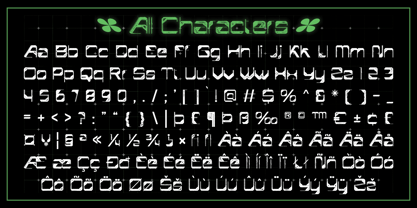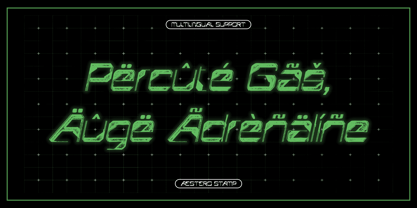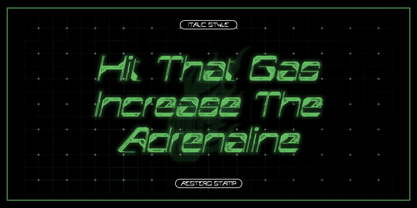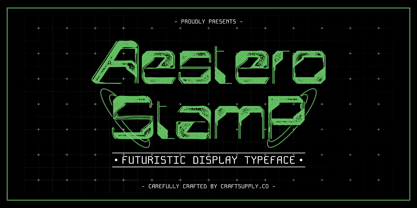
Aestero Stamp
by Craft Supply Co
The Aestero Stamp Font Family was designed by Trio Nazzar Saputra, Wahyu Hadi Yuana and published by Craft Supply Co. Aestero Stamp contains 2 styles and family package options.
Aestero Stamp – Futuristic Display Font
Innovative Aesthetic Inspired by Sci-Fi
Aestero Stamp is a modern display font that embodies a futuristic design, drawing inspiration from the realms of science fiction. Its unique and innovative aesthetic reflects the elements of technology and imaginative futures, making it a standout choice for contemporary designs.
Strong, Attention-Grabbing Impression
Featuring sharp lines and dynamic geometric shapes, Aestero Stamp creates a powerful visual presence that captures attention. The bold forms and striking angles ensure that your messaging stands out, making this font ideal for impactful design projects.
Distinctive Layered Stamp Effect
The layered stamp effect adds an extra dimension of character and texture, imparting an industrial and artistic feel to the font. This distinctive quality enhances its overall appeal, allowing it to resonate in various creative contexts while maintaining a cutting-edge look.
Perfect for Creative Projects
Aestero Stamp is particularly suited for film posters, video games, and other creative endeavors that demand a bold and futuristic aesthetic. Whether you’re aiming for a tech-savvy vibe or a visually engaging narrative, this font provides the versatility needed to bring your concepts to life.
Designers: Trio Nazzar Saputra, Wahyu Hadi Yuana
Publisher: Craft Supply Co
Foundry: Craft Supply Co
Design Owner: Craft Supply Co